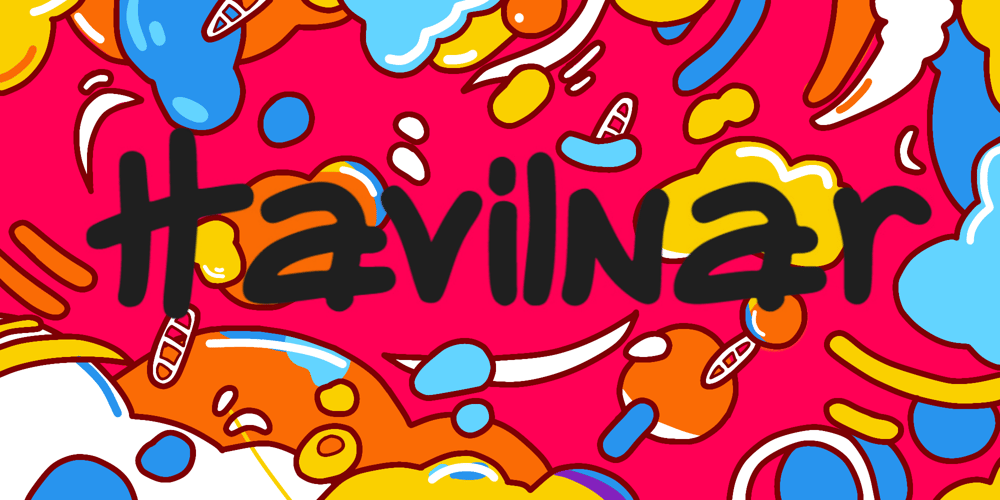
Havilnar
Havilnar font
Havilnar Font Family was designed by Zaizafun Hanifah and published by Daily Studio. Havilnar contains 1 styles and family package options. Havilnar is a modern bold font designed by Daily Studio. Havilnar typeface is very suitable for use in making headlines, branding, cover designs, and posters. The round edge and smooth surfaces make your projects look stunning.This font has over 200 glyphs with multilingual letters included.